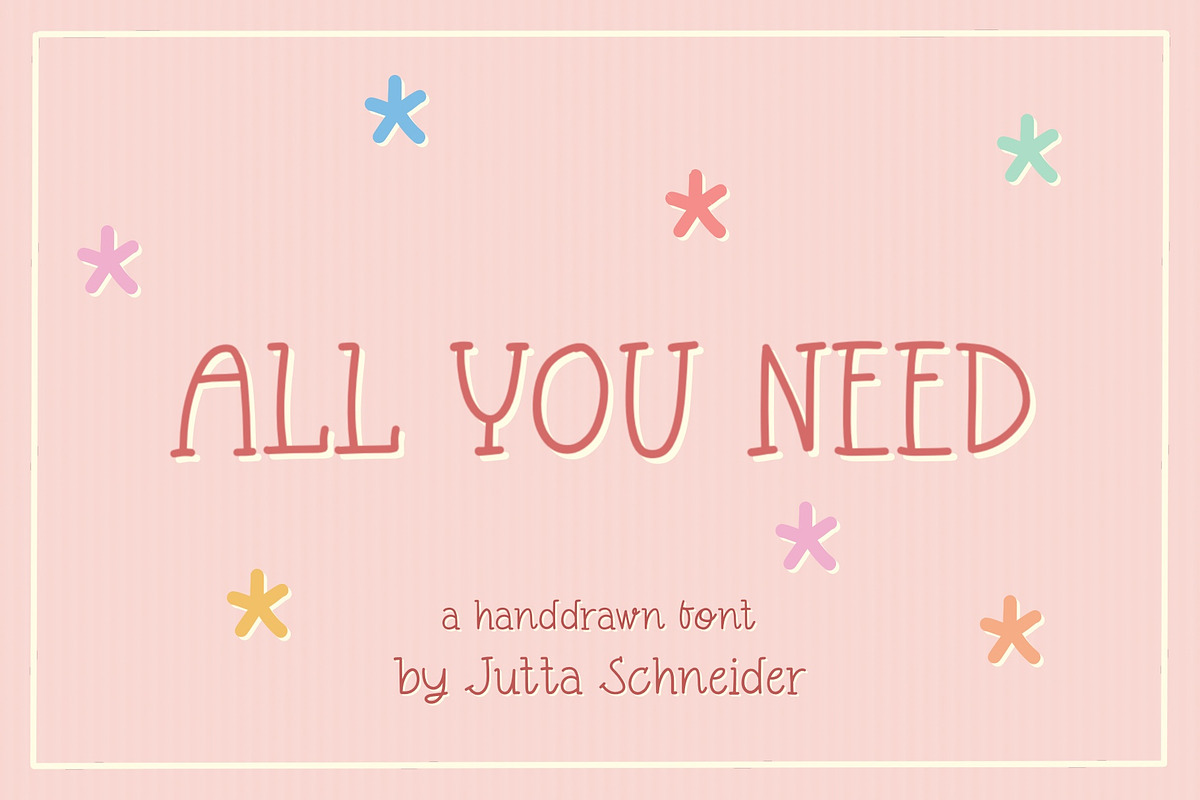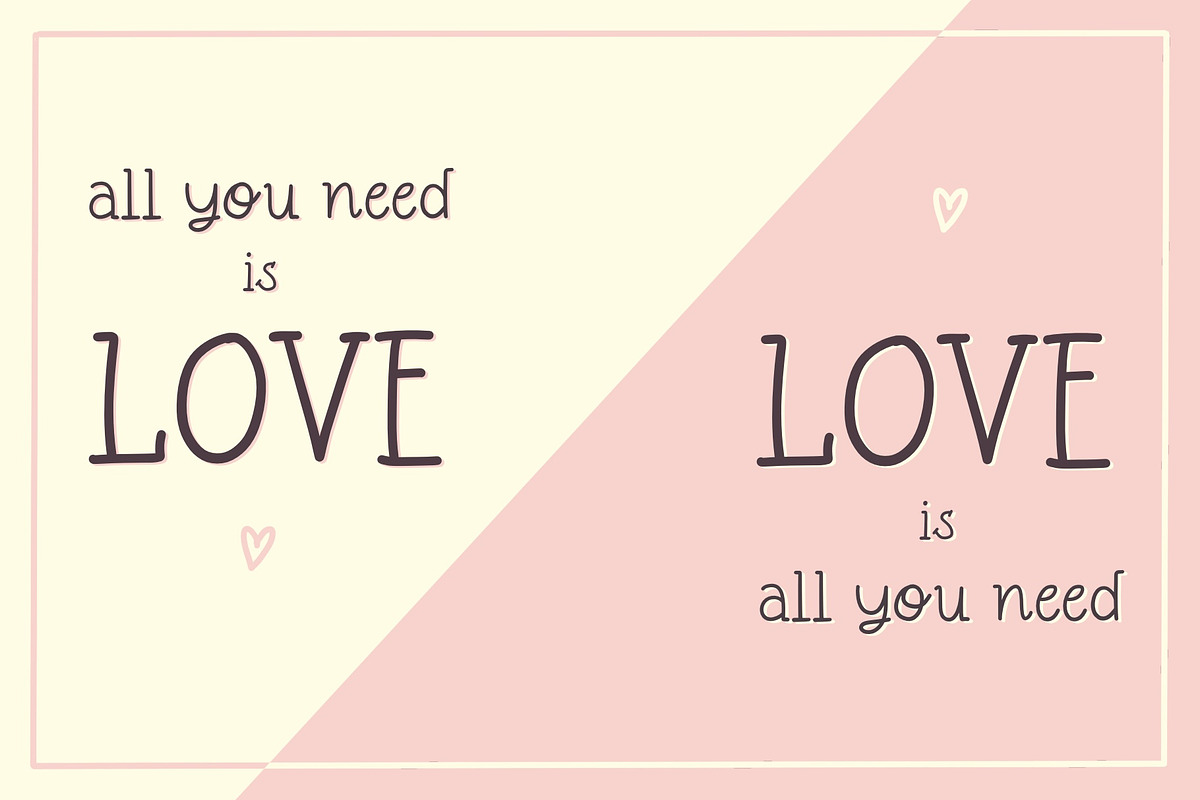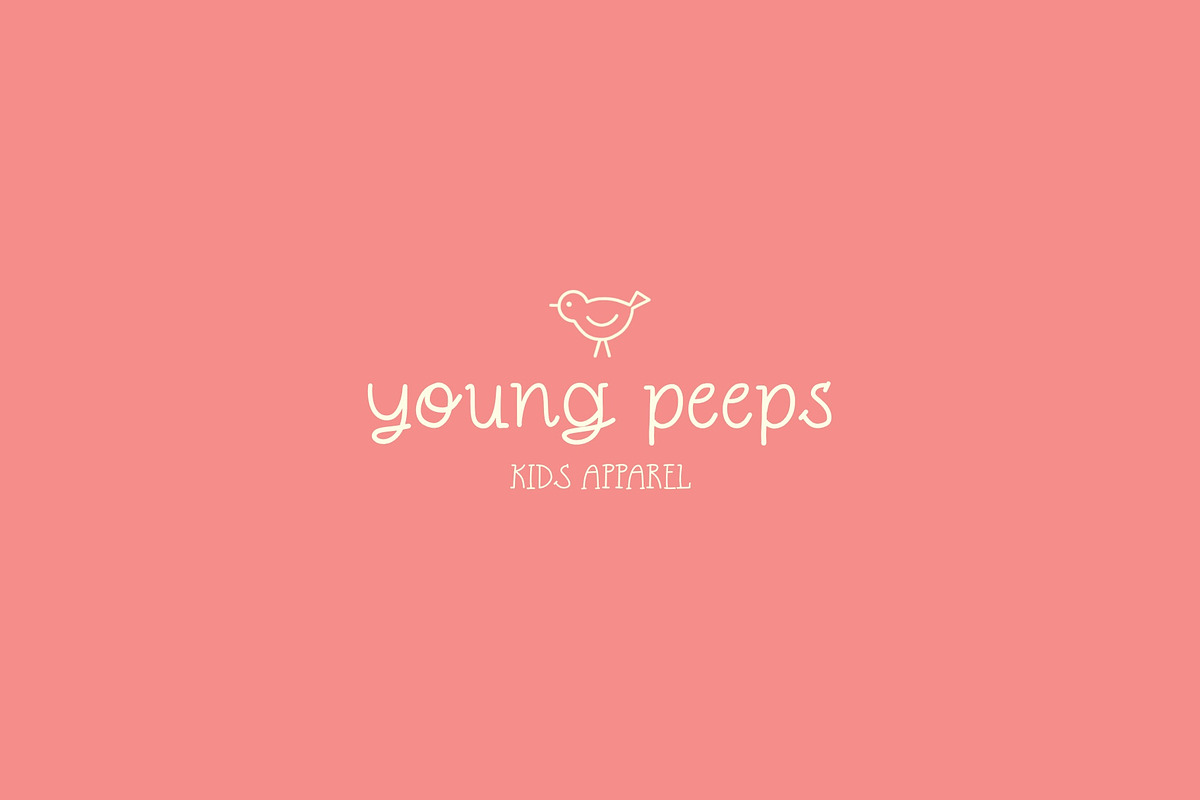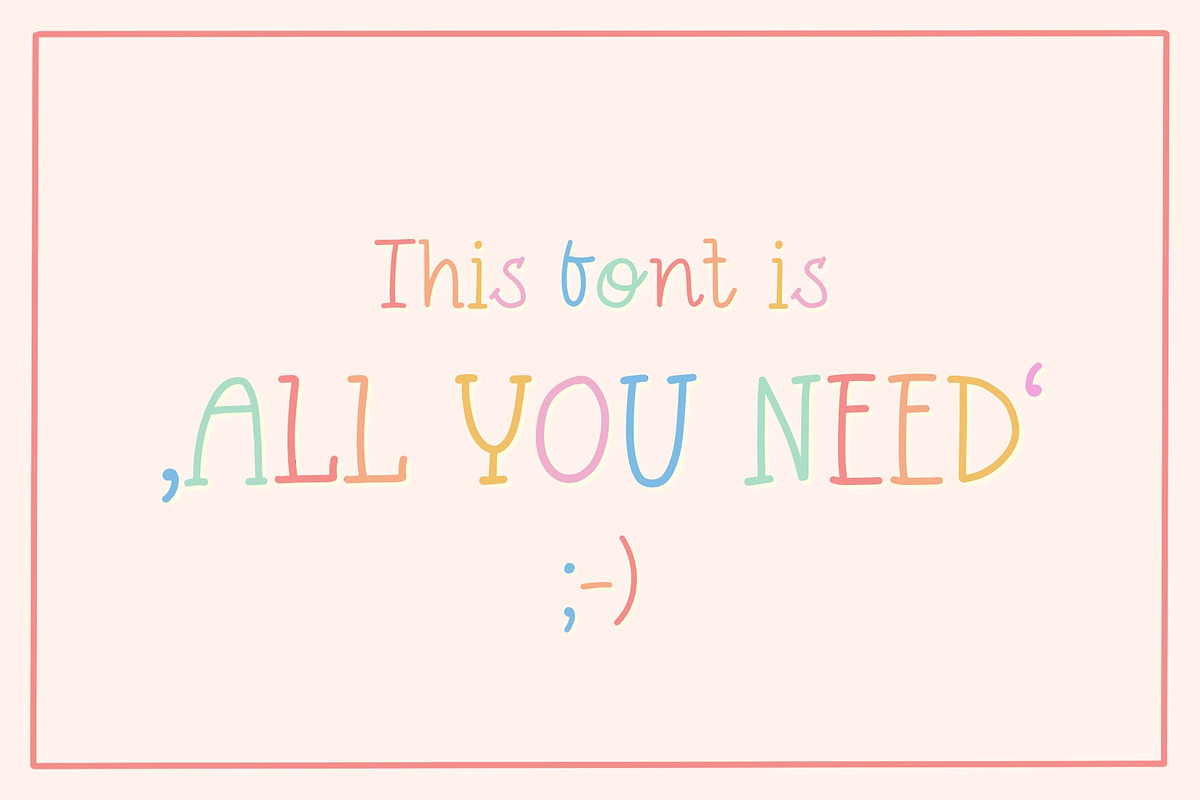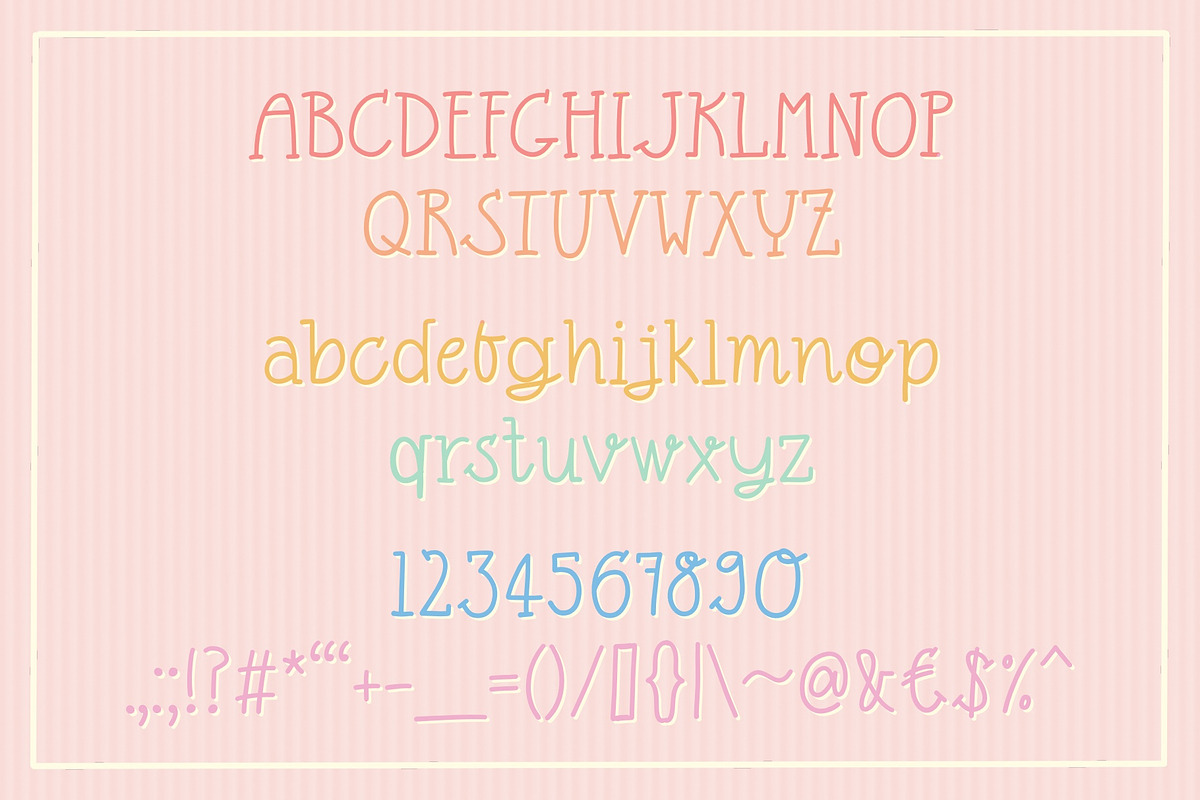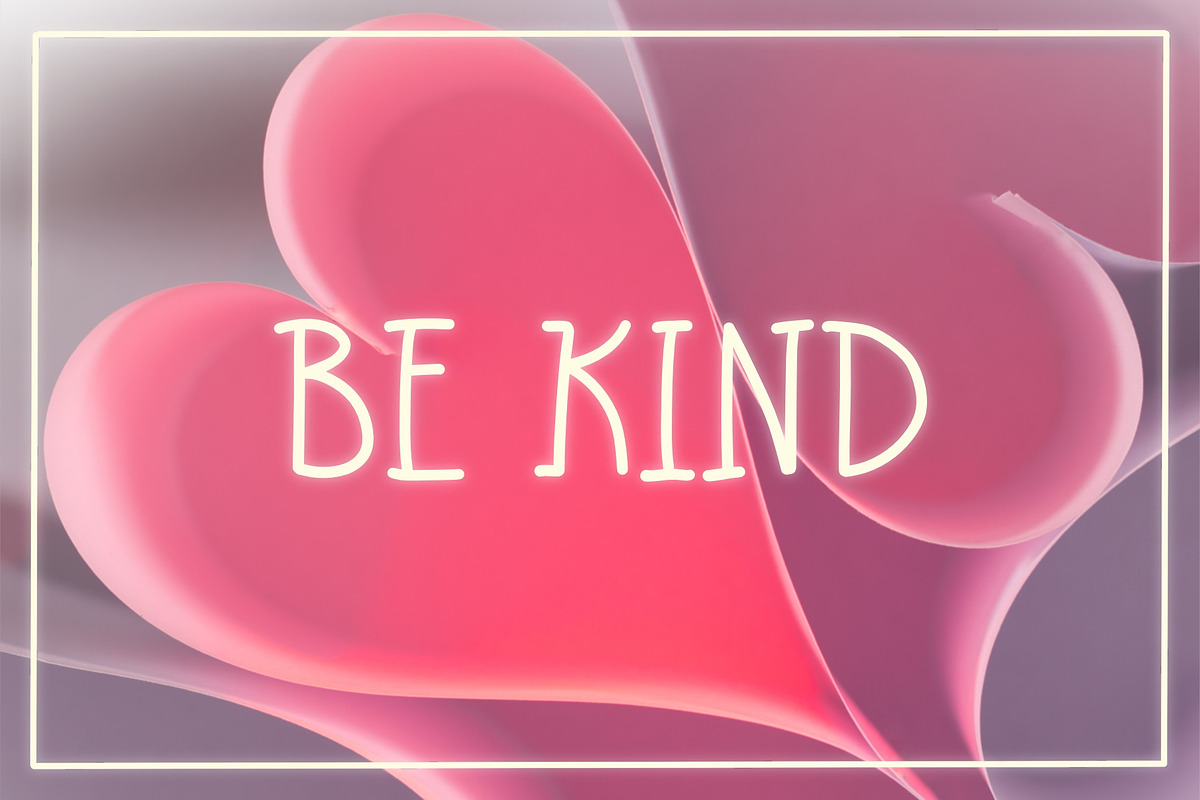
All You Need - a handdrawn font
‚All You Need‘ - a cute and playful handdrawn font
Every character has been carefully designed and handdrawn. The wonky lines add to the overall playfulness and makes it suitable for any fun and cute occasion. Create wonderful cards, quotes, posters or include it into illustrations, memes and such. It even works great as a logo type!
This is a versatile font that plays very well with its context. I included both English and German characters and punctuation, let me know if you wish for another set of characters in your language!